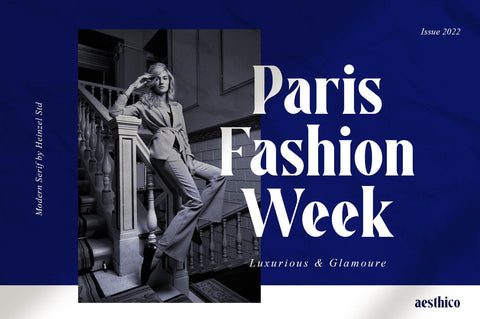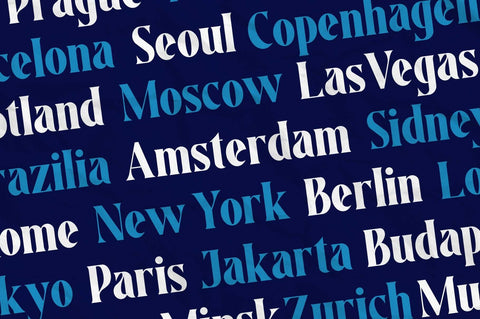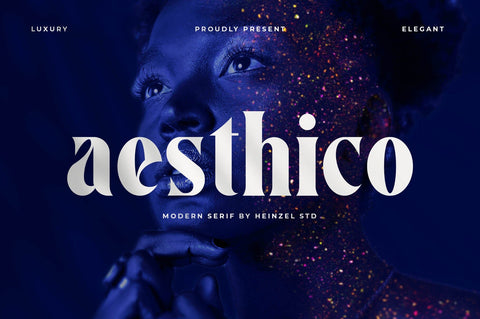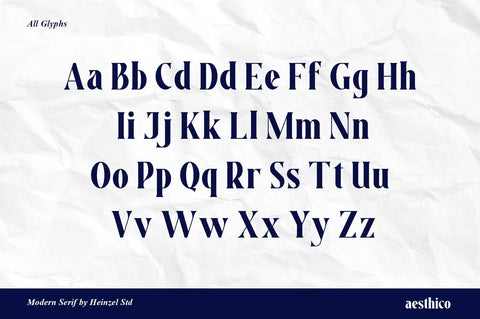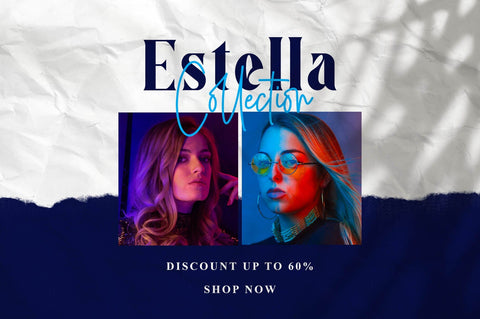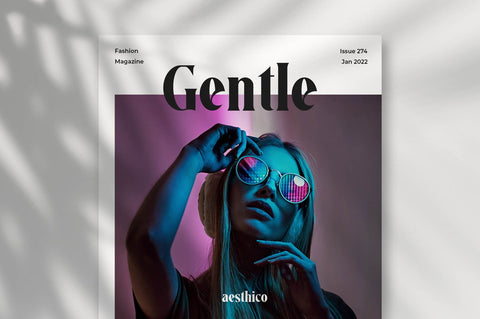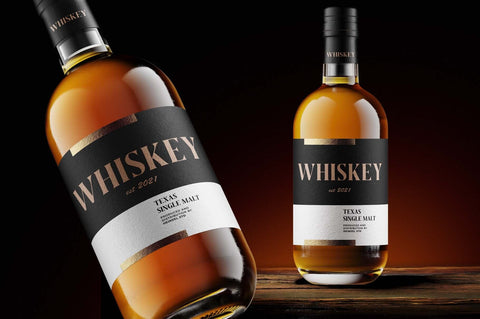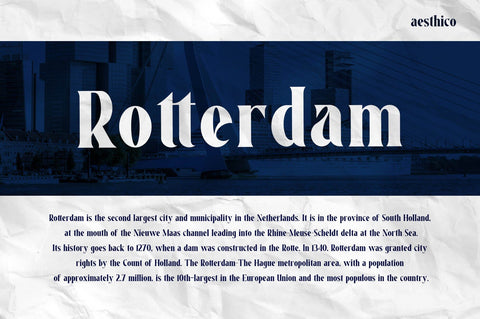
Aesthico Modern Serif Font
Aesthico is a modern and elegant serif font inspired by a popular magazine logo. Aesthico is great for headlines, logos, covers, posters, and other creative designs. This font is PUA encoded which means you can access all of the amazing glyphs with ease!
Aesthico Features:
- Aesthico Regular version, serif font All Caps, Numerals, and more punctuations.
- Multilingual support for various languages